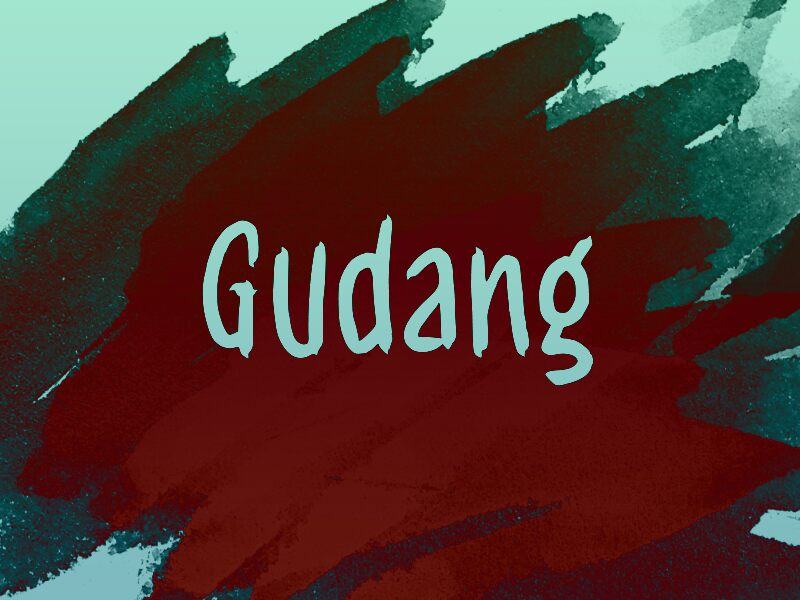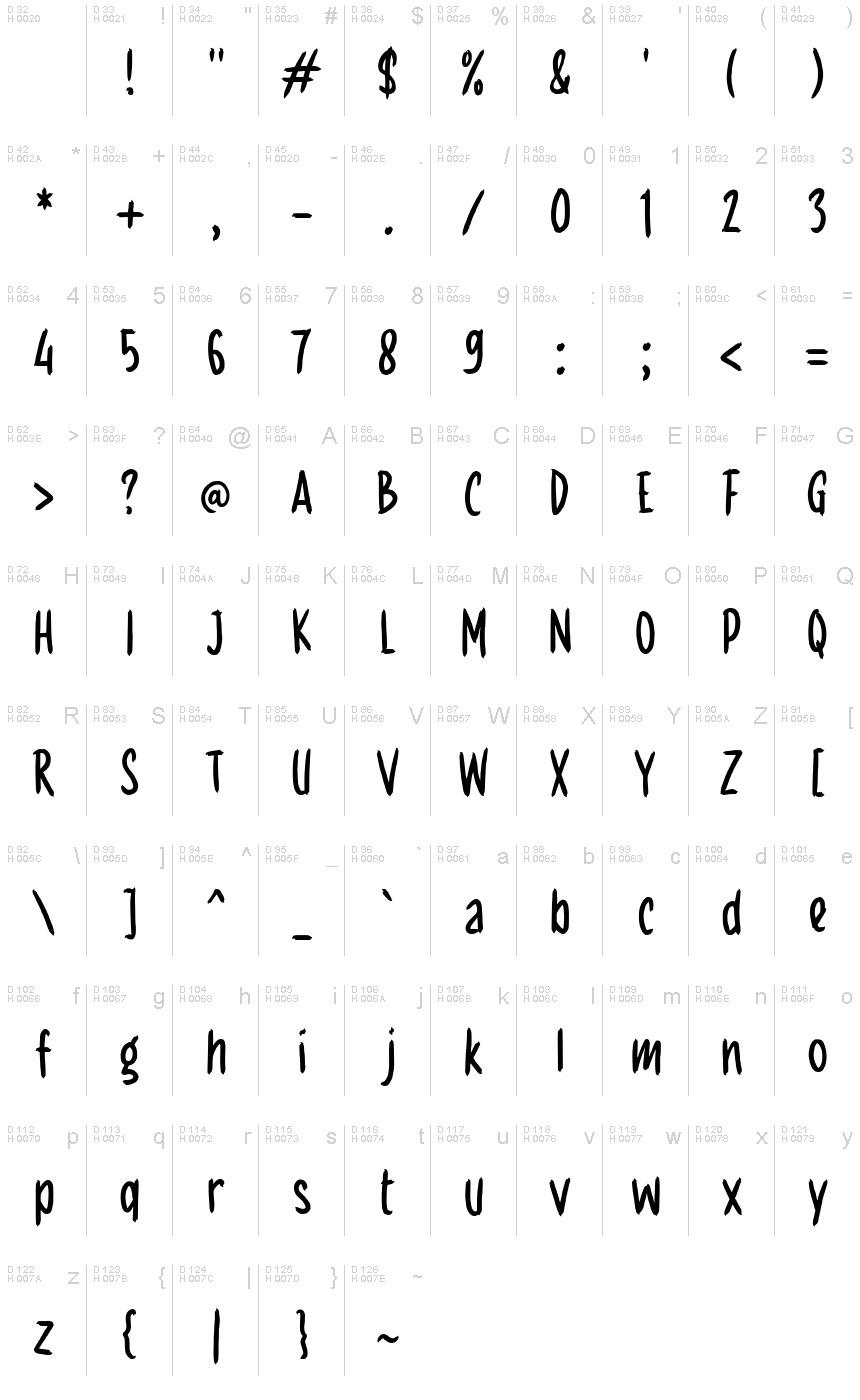
Gudang
Gudang, a captivating brush font crafted by designer wep, exudes a raw, expressive energy that immediately captures the eye. This condensed typeface boasts an organic, hand-lettered aesthetic, with each character bearing the distinct marks of the artist's touch. The fluid, dynamic strokes and playful, slightly irregular forms lend the font a sense of authenticity and character, making it a compelling choice for projects seeking a distinctive, artisanal flair.
Gudang's versatility shines through its ability to seamlessly transition between bold, impactful headlines and more delicate, expressive applications. Its condensed width allows for efficient text composition, making it well-suited for a wide range of design elements, from packaging and branding to editorial layouts and digital interfaces.